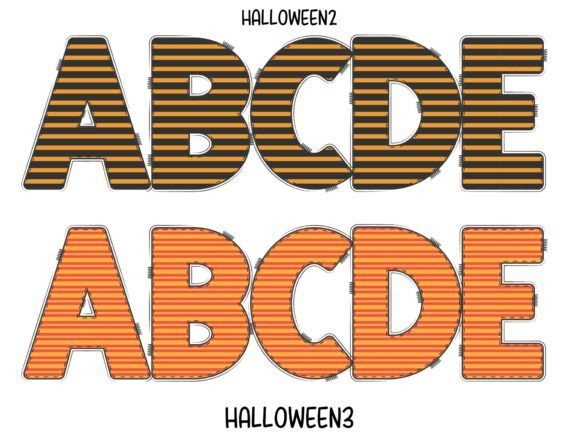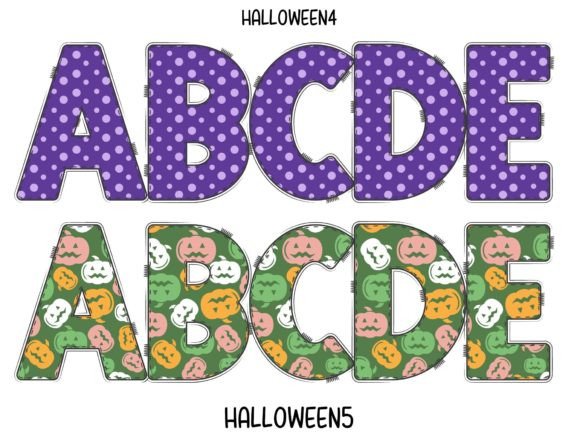
Unleash the Spooky Spirit with Halloween Font: A Comprehensive Guide
Halloween is just around the corner, and what better way to get into the spirit than with a spooky-ooky font that’s perfect for your creative projects? Look no further than the Halloween Font, a cute and fun Halloween-styled detailed colored font that’s sure to make your designs stand out. In this article, we’ll dive into the world of Halloween Font, exploring its features, compatibility, and how to use it to create amazing designs.
What is Halloween Font?
Halloween Font is a unique and creative font designed specifically for Halloween-themed projects. It’s a detailed colored font that features intricate designs and patterns, making it perfect for a variety of applications, including Halloween, horror, or cute-themed work. The font is incredibly versatile and can be used to add a touch of spookiness or playfulness to your designs.
Features of Halloween Font
- Detailed Colored Design: The Halloween Font features intricate designs and patterns, making it perfect for creating visually appealing designs.
- Cute and Fun: The font has a playful and cute feel to it, making it perfect for Halloween-themed projects that require a touch of whimsy.
- Experiment with Colors: The Halloween Font is a colored font, so don’t be afraid to experiment with different colors to create unique designs.
- Use it for a Variety of Projects: The font is versatile, so use it for a range of projects, including Halloween-themed designs, horror-themed designs, or even cute-themed designs.
- Pair it with Other Fonts: Don’t be afraid to pair Halloween Font with other fonts to create interesting and unique designs.
Halloween Font is a unique and creative font that’s perfect for designers and crafters who want to add a touch of spookiness or playfulness to their designs. With its detailed colored design, cute and fun feel, and compatibility with various design programs, it’s an excellent addition to any design project. Whether you’re creating Halloween-themed designs, horror-themed designs, or cute-themed designs, Halloween Font is sure to make your designs stand out.